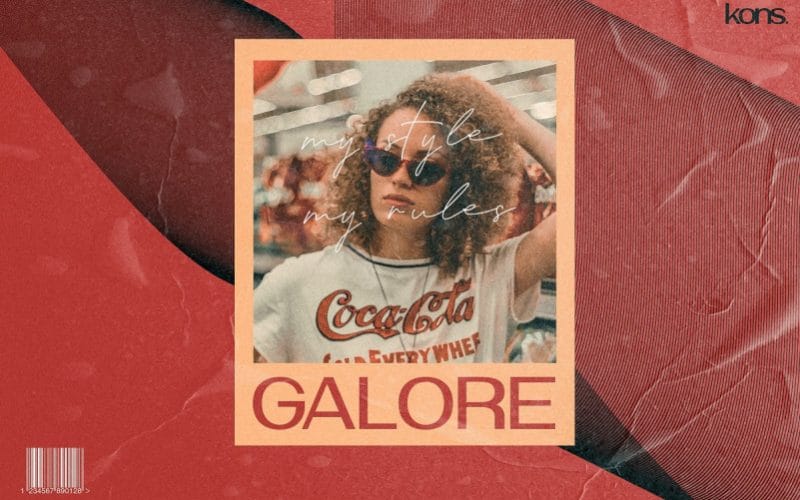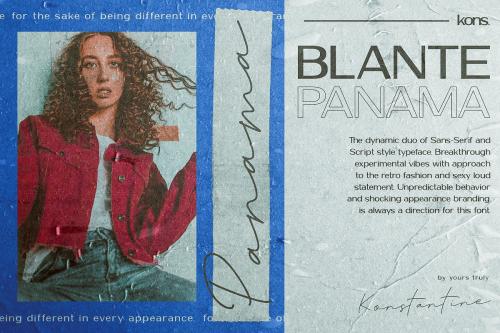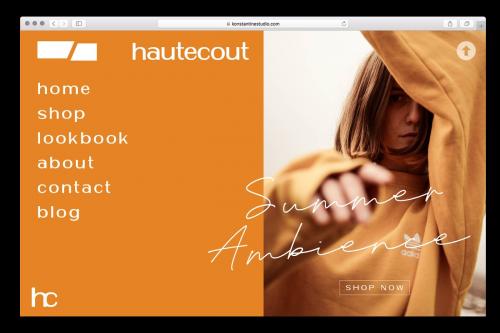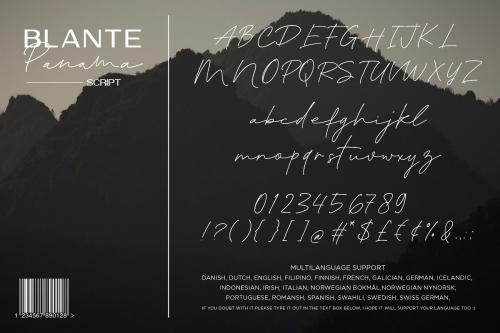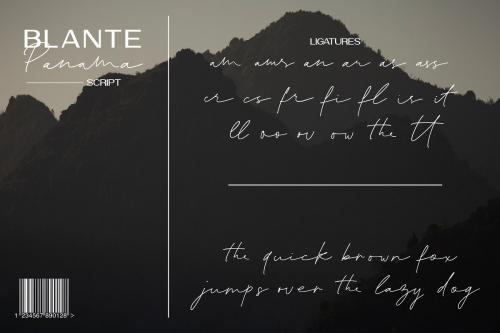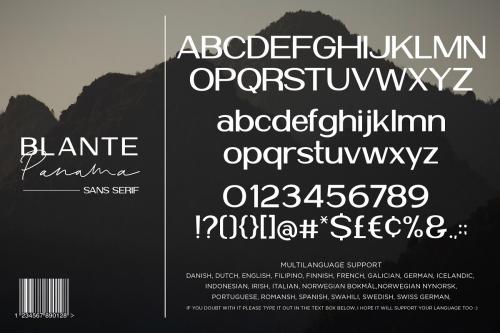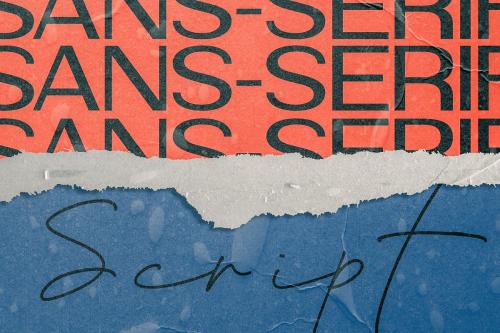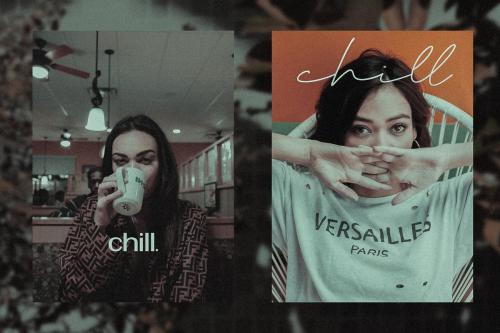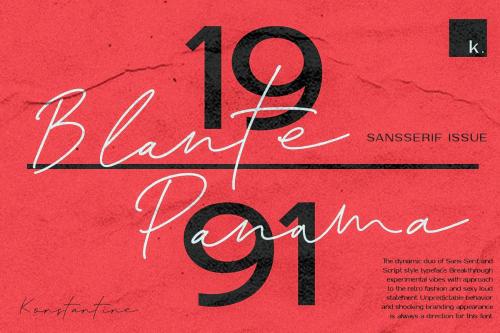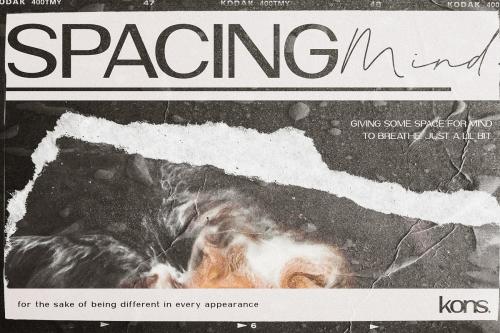
Pair of thick and thin classy sans-serif with ballpoint handwritten style script. Breakthrough experimental vibes with approach to the retro fashion and sexy loud statement. Unpredictable behaviour and shocking appearance branding is always a direction for this font.
Perfectly fit for your casual and streetwear branding, poster event, website branding, social media content, everything will be sans serif eventually, and handwriting script will be a good pair of those needs. That’s why Blante Panama comes down to earth.
A pair of sophisticated duo fonts is coming in 3, 2, 1, ladies and gentlemen, please welcome, Blante Panama!